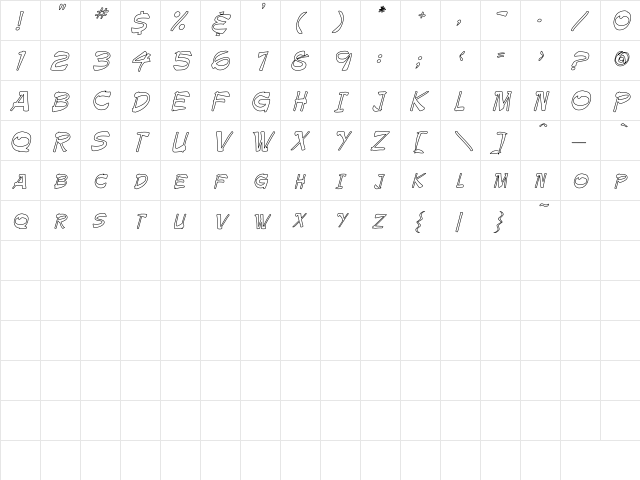
Paintbrush Hollow Regular
Design Context for Paintbrush Hollow Typeface
Paintbrush Hollow flows with the natural rhythm of handwritten lettering, making it ideal for designs that call for warmth and personal expression.
Font Pairing: Combine Paintbrush Hollow with a simple geometric sans for maximum contrast — the tension between flowing curves and clean structure is a classic typographic pairing.
Pro Tip: Pair Paintbrush Hollow with a clean sans-serif for supporting text. The contrast between fluid script and geometric structure creates an elegant typographic hierarchy.